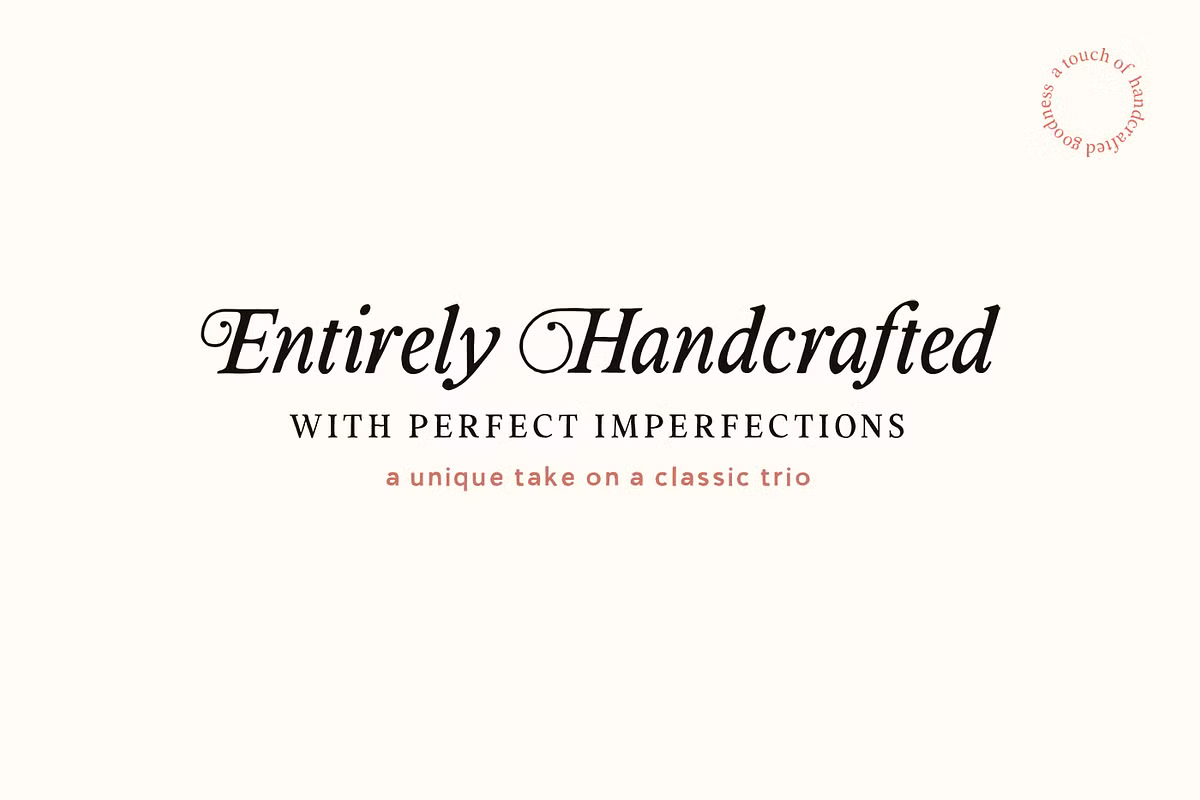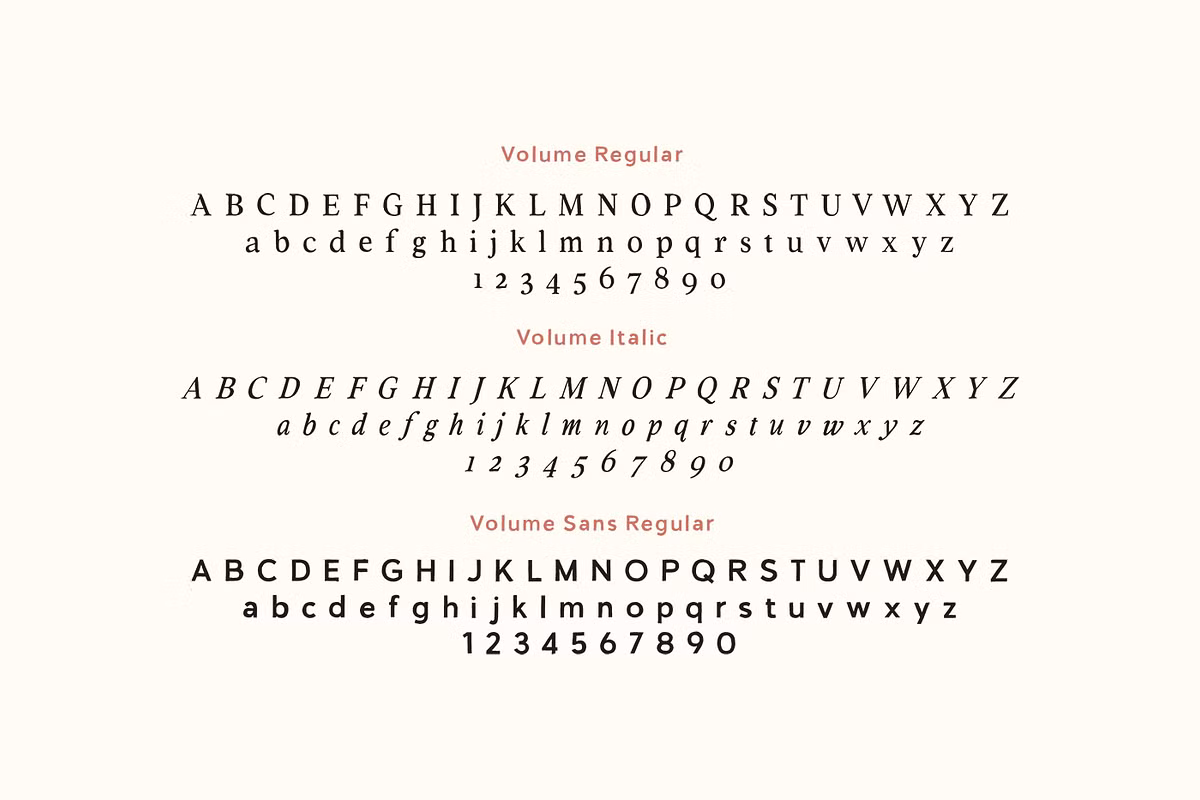
Introducing Volume: A Unique Handcrafted Font Trio
Welcome to Volume, a one-of-a-kind font collection that’s perfect for creative people. It includes three handmade fonts: a classic serif, a stylish italic, and a modern sans font. Each font has a professional look, but with a personal touch that makes it special. Volume is different from traditional font families because it combines elegance with a handmade feel, making it great for many different design projects.
Design Style: A Perfect Blend of Handcrafted and Professional
The Volume font trio stands out for its distinctive design style that balances handcrafted qualities with professional appeal. The serif font offers a classic elegance, perfect for projects that require a touch of sophistication. Its italic counterpart, featuring real italics, introduces a dynamic flair that enhances expressive typography.
The sans font has a modern and clean look that goes well with the serif and italic styles. This mix of styles in the Volume family gives designers the freedom to pick the perfect font for their project, whether it’s a formal invitation, a website, or promotional materials. By combining these styles, designers can create a unique look that suits their needs. The sans font is simple, yet elegant, making it a great choice for contemporary designs. It also works well with the more traditional serif and italic styles, allowing designers to add a touch of sophistication to their work. Overall, the Volume family offers a lot of flexibility and versatility, making it a great option for designers who want to create a wide range of materials.
Character Sets: Multilingual Support for Global Reach
The Volume font trio has a really impressive feature – its huge collection of characters. Because it works with OpenType fonts, you can easily use it with all the main design programs, even on your phone or tablet. This means you can use the Volume fonts without any hassle, no matter what design platform you like to use. It’s great that they’re so versatile and can be used in many different ways, making it easy to add them to your designs.
Use Cases: Perfect for Any Design Brief
The Volume font trio is really versatile, which means it can be used in many different ways. Let’s take a look at some examples of where this unique, handcrafted font family really stands out.
- Brand Identity: The serif style lends itself beautifully to logo design, creating a distinctive mark that conveys professionalism and creativity.
- Editorial Design: Use the italic font for engaging headlines and pull quotes in magazines or online articles, adding a personal touch to your layouts.
- Web Design: The sans font’s clean lines and modern feel make it an excellent choice for website typography, ensuring readability and aesthetic appeal.
- Promotional Materials: From flyers to business cards, the Volume trio can elevate your promotional materials with its unique handcrafted style, helping you stand out in a crowded marketplace.
Pairing Suggestions: Create Harmonious Typography
To make the most of the Volume font trio, consider these pairing suggestions:
- Volume TC Regular with Volume TC Sans: Use the serif for headings and the sans for body text to create a striking contrast that enhances readability while maintaining visual interest.
- Use Volume TC Italic to add emphasis to certain parts of your text, like quotes or key information, and pair it with Volume TC Regular for the rest of the content. This way, you can create visual interest and draw attention to important details, while still maintaining a consistent look for the main body of your text.
- Mixing Volume TC Sans with Other Fonts: Pair the sans font with a more decorative typeface to add character to your designs without overwhelming them. This combination can create a balanced and engaging visual hierarchy.
Conclusion: Elevate Your Design with Volume
In the end, Volume is not just a set of three fonts – it’s a really useful tool that can take your design work to a whole new level. What makes Volume special is how it combines a handmade look with a professional feel, making it perfect for all sorts of projects, like creating brands or designing editorials. Plus, it supports lots of languages and has flexible rules for using it, which makes it even more useful and a must-have for any designer’s collection of tools.
The Volume font trio is perfect for anyone who wants to create amazing designs, whether you’re just starting out or have been doing it for years. It’s really flexible and stylish, so you can make all sorts of cool things with it. With Volume, you can let your imagination run wild and make some really stunning visual stories. It’s all about being creative and having fun with your designs!